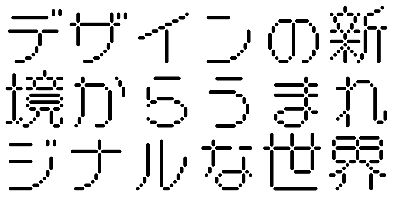
TeoriaMF Font is perfect for academic research publications, theoretical framework presentations, scientific hypothesis documentation, scholarly thesis materials, mathematical theory communications, intellectual property papers, educational methodology guides, and philosophical discourse publications. This sophisticated typeface excels in applications requiring intellectual authority and theoretical precision that captures the essence of academic rigor and scholarly excellence through refined visual character and intellectual credibility.
What makes TeoriaMF Font exciting is its scholarly sophistication that perfectly captures the essence of theoretical thinking and academic discourse through precisely engineered letterforms designed for intellectual communication. The font features refined character construction with academic proportions and theoretical styling that instantly conveys themes of intelligence, research excellence, and scholarly authority perfect for institutions requiring intellectual credibility and academic market positioning.
The TeoriaMF Font family includes comprehensive academic weights and theoretical variations with scholarly styling elements, offering designers complete tools for creating sophisticated intellectual compositions. The family provides consistent academic aesthetic with strategic hierarchy options for effective theoretical communications and scholarly branding projects requiring genuine intellectual character and academic research appeal.
TeoriaMF Font Free Download represents an exceptional choice for academic institutions and researchers seeking typography that embodies theoretical excellence and scholarly sophistication. Whether you're developing research publications, academic presentations, theoretical frameworks, or scholarly communications, this font provides the intellectual character needed for establishing academic authority and theoretical brand credibility.
The intellectually crafted letterforms of TeoriaMF Font ensure optimal readability across all academic applications while maximizing scholarly appeal and theoretical sophistication, making it ideal for research publications, academic presentations, and intellectual communications. This distinguished typeface combines academic heritage with contemporary technical standards for outstanding performance in scholarly environments requiring authentic intellectual character and sophisticated theoretical presence.